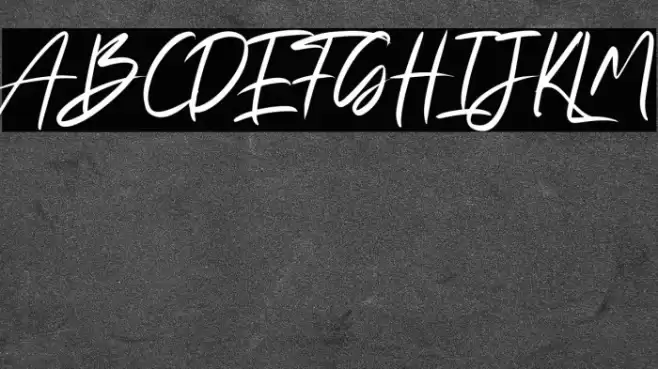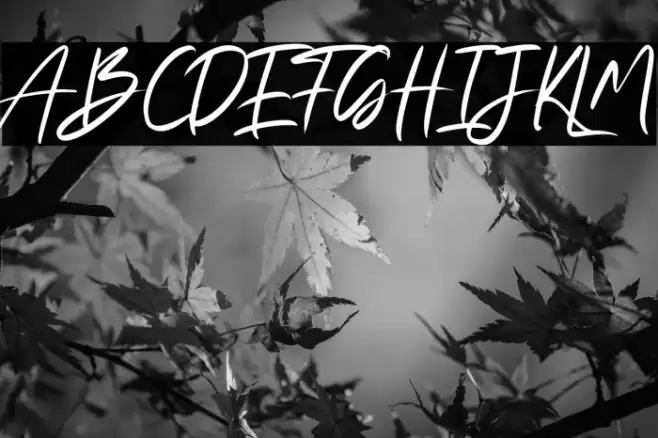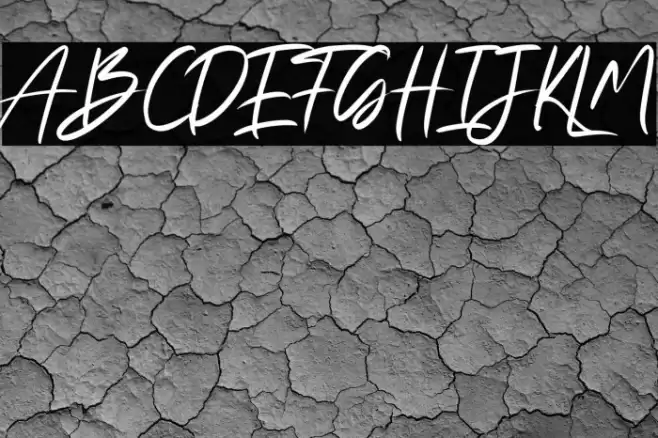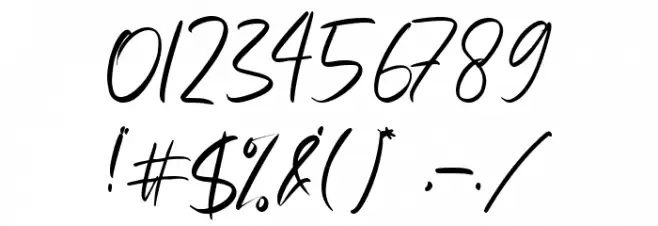
Fany Alleya Font
Fany Alleya Description
This font exudes a dynamic and expressive style with its fluid, handwritten appearance. The uppercase letters are bold and sweeping, while the lowercase letters maintain a consistent flow, adding a touch of elegance. The numerals are distinct and easy to read, complementing the overall aesthetic. Special characters are creatively designed, enhancing the font's versatility. The strokes vary in thickness, providing a natural and organic feel, reminiscent of a personal touch. This font is perfect for projects that require a personal, artistic flair.
A dynamic, handwritten font with expressive strokes and a personal touch from Uncategorized fonts.
- Font: Fany Alleya
- Proposed Projects: Ideal for wedding invitations, personal branding, artistic posters, and creative social media graphics.
- Use Case: Logos, Headlines, Invitations
Fany Alleya UPPERCASE
Fany Alleya LOWERCASE
Fany Alleya OTHER CHARS